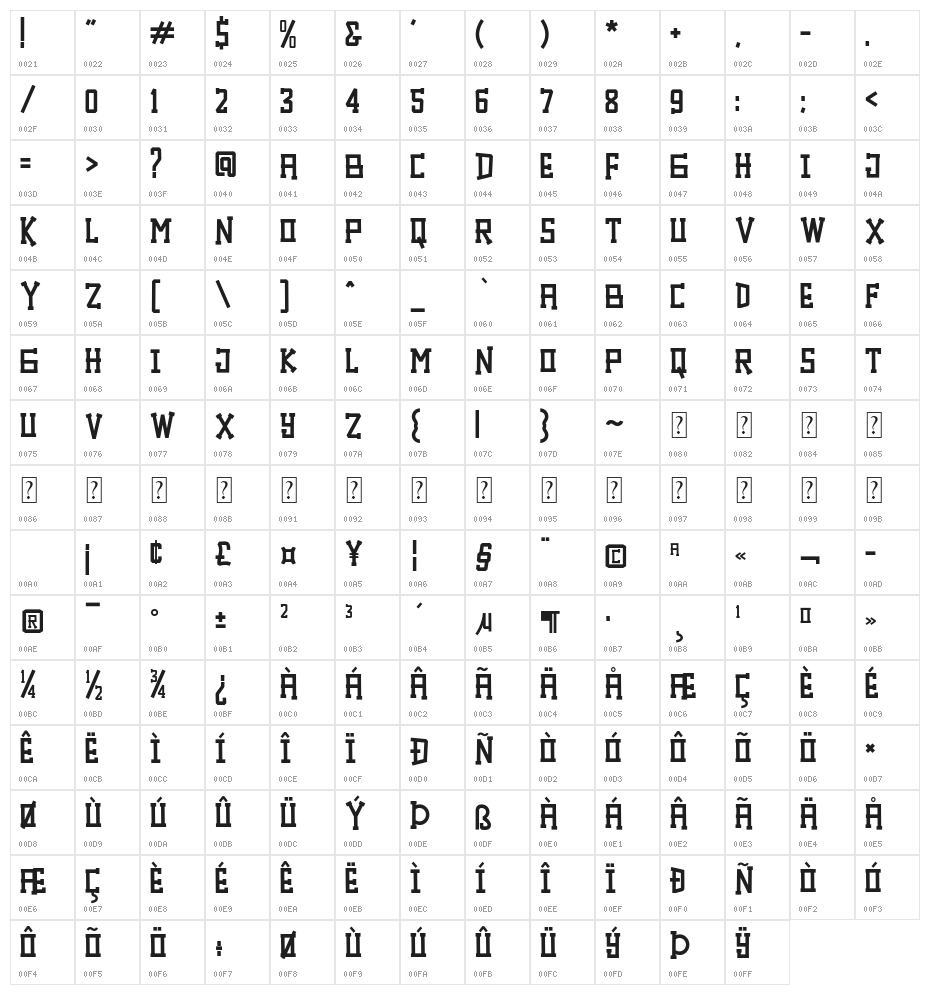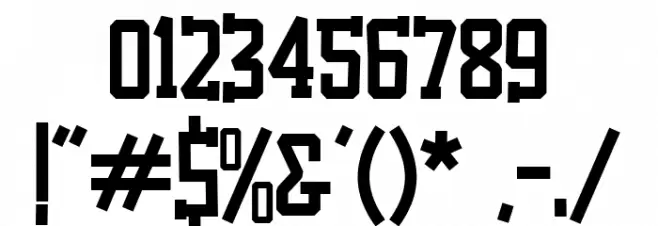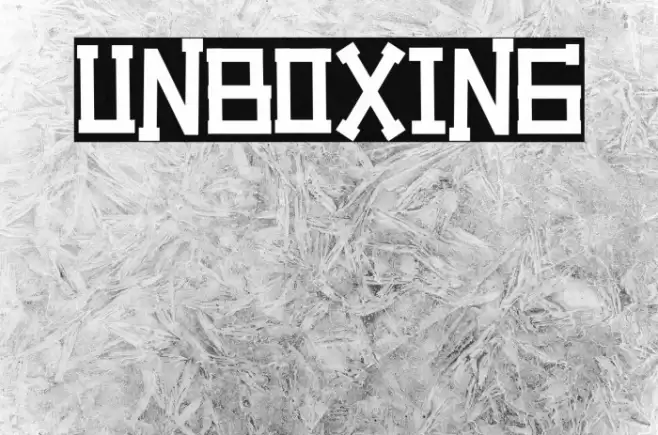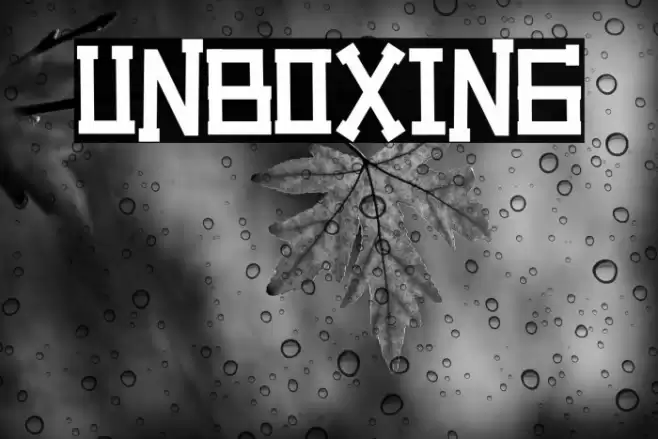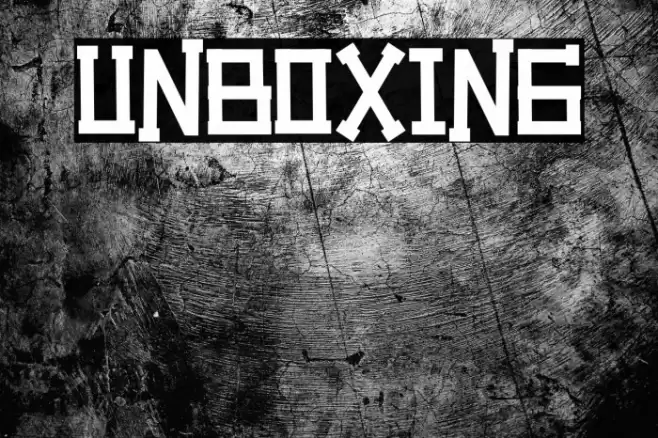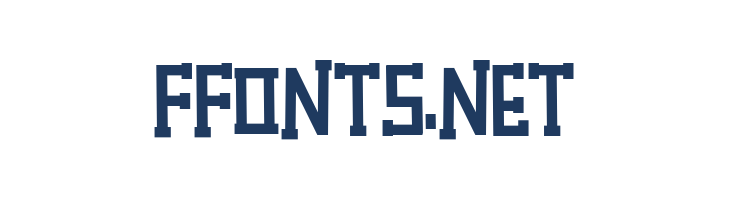
Unboxing Font
Unboxing Description
This font features a bold and striking design with a geometric and angular structure. The characters are crafted with sharp edges and a uniform thickness, giving it a strong and assertive appearance. The uppercase and lowercase letters maintain a consistent style, with the uppercase letters being slightly taller and more prominent. The numbers and special characters follow the same design principles, ensuring a cohesive look across all glyphs. The font's unique style makes it stand out, making it ideal for attention-grabbing designs.